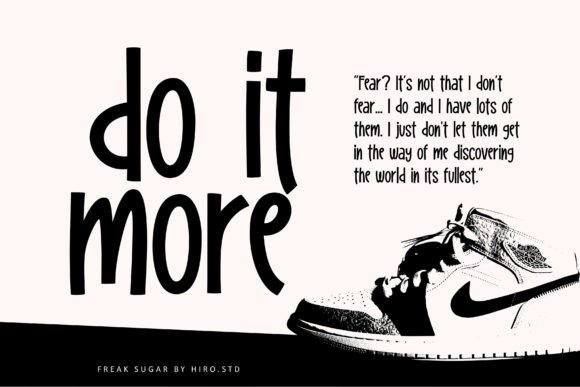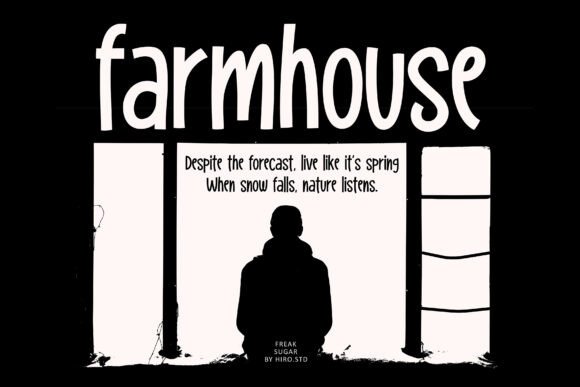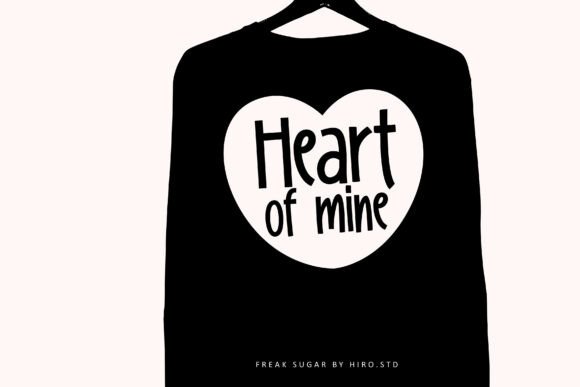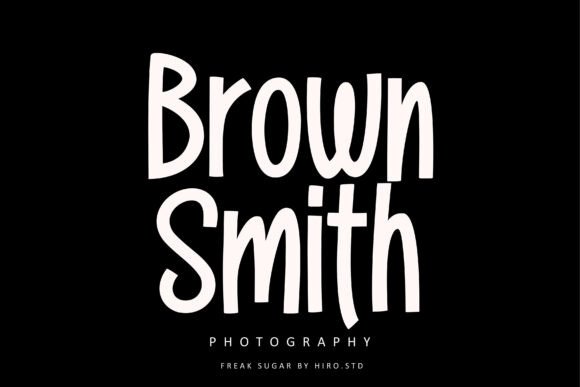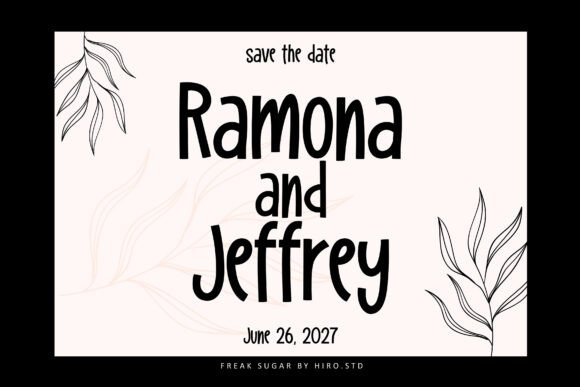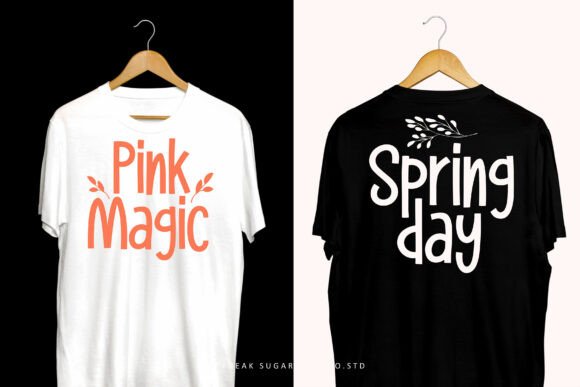
The Sweet Spot: Discovering Freak Sugar Font
I still remember the design project that led me to Freak Sugar Font. I was working on a whimsical branding project for a new bakery, and I was struggling to find the perfect font to capture the playful, yet elegant vibe of their brand. That’s when I stumbled upon Freak Sugar, and it was love at first sight! 💕
Freak Sugar is a sweet and friendly handwritten font that has become a staple in my design toolkit. Its natural and unique style makes it incredibly fitting to a large pool of designs. The only limit is your imagination! In this article, I’ll share my honest review, a practical guide on how to use Freak Sugar, and some valuable insights into this beautiful font.
- Unique and natural handwritten style that adds a personal touch to any design
- Extremely versatile and adaptable to various design projects, from branding to invitations
- Easy to read and understand, even in smaller font sizes
- OpenType features, glyphs, and stylistic alternates for added creativity
- Some letters may appear a bit inconsistent in size or spacing, which can be adjusted with font pairing
- Limited availability of language support, mainly focused on English and some European languages
- ⚠️ May not be the best fit for very formal or corporate designs, as it’s more playful and whimsical
The Story Behind Freak Sugar
Freak Sugar was designed with the intention of creating a font that would capture the essence of a handwritten note. The designer aimed to create a font that was both playful and elegant, with a unique style that would stand out in any design.
| Font Name | Freak Sugar Font |
| Author | HIRO.std |
Q: What is Freak Sugar Font best suited for?
A: Freak Sugar Font is best suited for designs that require a personal touch, such as branding, invitations, and social media graphics.
Q: Is Freak Sugar Font available in multiple languages?
A: Freak Sugar Font mainly supports English and some European languages, but it’s best to check with the designer for specific language support.